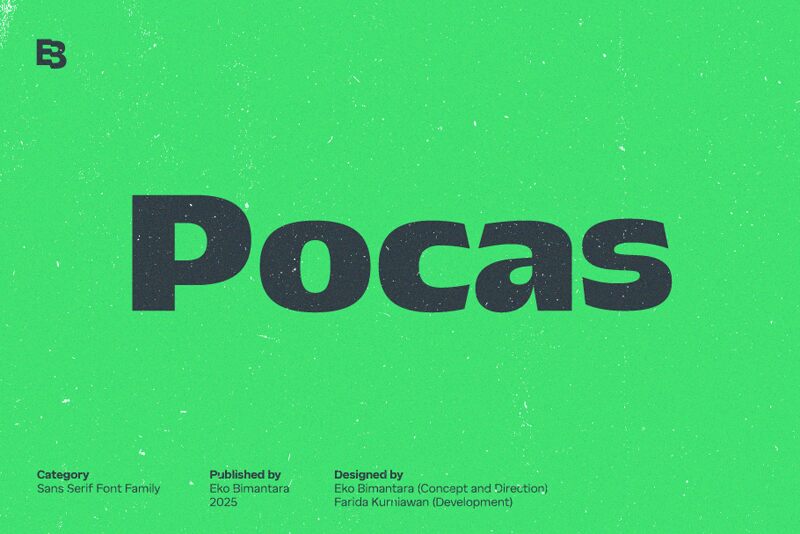
Pocas font family by Eko Bimantara consists of clean and contemporary sans serif font styles. The uncompromising modern style will create a strong presence to any visual. The family is versatile, minimalistic, and professional, with an elegantly balanced and clear structure. The adaptable, impactful design allows it to fit perfectly in any medium.
All sorts of branding, promotional, or advertising projects can be created with Pocas. The uses can include but are not limited to logo design, packaging, visual identities, brochures, and posters. Try it in headers, titles, and signage for a bold direct effect with high legibility.